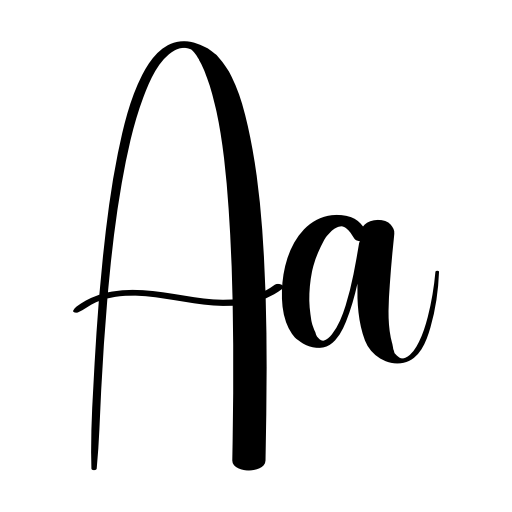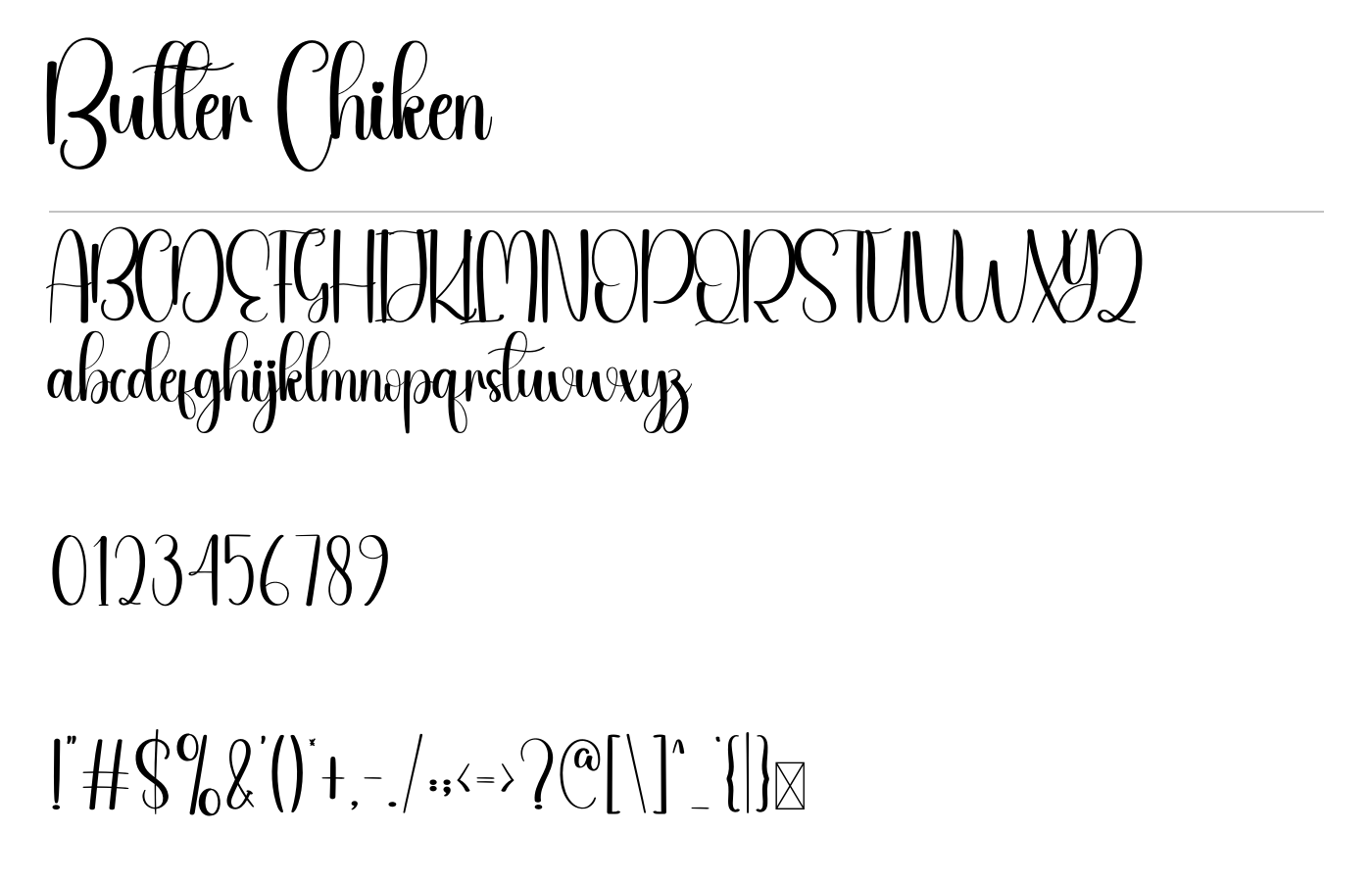
Butter Chiken is a charming and elegant script font with a tall, narrow structure and graceful, flowing strokes. Its delicate, hand-lettered style brings a playful yet refined personality, ideal for feminine and creative designs like invitations, branding, and social media graphics. This font works best in decorative headlines and logos where its unique, artistic letterforms can shine.
Butter Chiken Font
About Butter Chiken Font